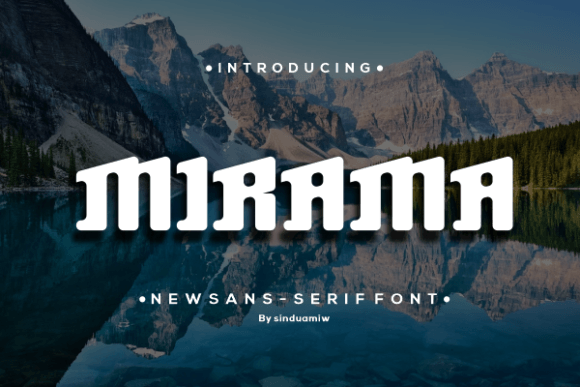
**Indulge in the Allure of Mirama: Captivating Fonts for Marketing Eminence**
Welcome to the realm of Mirama, a contemporary display font family expertly crafted to elevate your marketing endeavors to new heights of enchantment. Each letterform is a testament to meticulous design, exuding an air of sophistication and intrigue that will leave an unforgettable impression on your audience.
Mirama's versatility extends beyond its captivating aesthetics. Its effortless adaptability to various marketing channels empowers you to convey your message with unparalleled impact. From captivating headlines that demand attention to persuasive body copy that weaves a compelling narrative, Mirama seamlessly enhances the allure of your brand.
Immerse yourself in the imaginative possibilities that Mirama unlocks. Its ability to evoke emotions and inspire action makes it the ideal choice for marketing campaigns that seek to resonate with audiences on a deeper level. Let your words dance across the page, infused with the captivating charm of Mirama, and watch as your message transforms into an irresistible call to action.
Indulge in the allure of Mirama today and elevate your marketing efforts to extraordinary heights. Its enchanting appeal and unwavering functionality will empower you to captivate your audience, leaving a lasting impression that will pave the way for unparalleled success.
**Mirama: The Key to Unlocking Marketing Supremacy**
* Modern and captivating display font family
* Designed to elevate marketing campaigns
* Versatile and adaptable to various marketing channels
* Evokes emotions and inspires action
* Enhances the impact of headlines and body copy
* Ideal for brands seeking to connect with audiences
* Crafted with meticulous attention to detail
**Experience the Mirama Advantage:**
* Increased brand recognition
* Enhanced marketing effectiveness
* Memorable and persuasive communication
* A step ahead in the competitive marketing landscape
**Embrace the Enchantment of Mirama and Ignite Your Marketing Brilliance!**